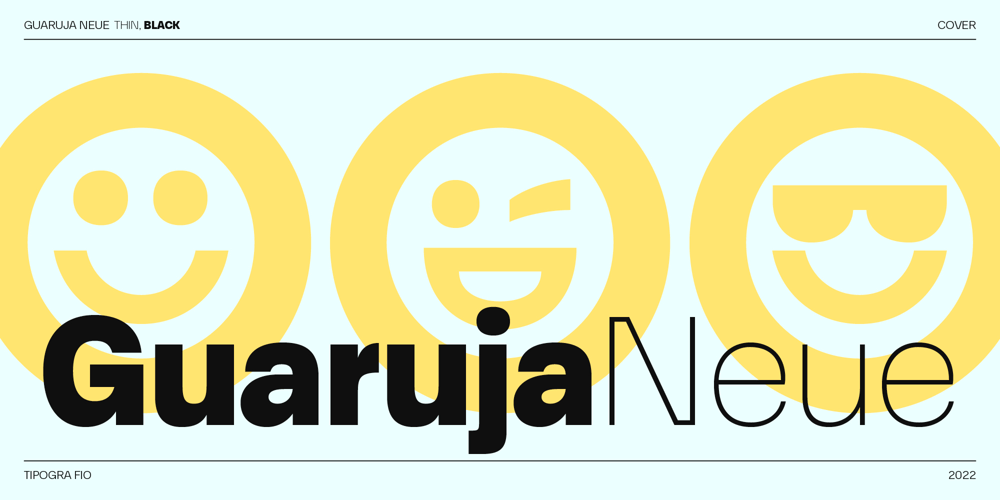
Guaruja Neue Font Family was designed by Fio and published by Tipogra Fio. Guaruja Neue contains 16 styles and family package options. Get in touch with Tipogra Fio and get inspired by Guaruja Neue specimens.Guaruja Neue is a neo-grotesque typeface with additional industrial traits to it, such as open corners in diagonal glyphs and short curves. The semi-cursive italics shapes, more than an orthographic matter, give sea waves for the headlines and copies that Guaruja Neue will compose, since it is named after a city on the coast of São Paulo, Brazil. Stylistic alternates, ligatures, ordinals, arrows and emojis give extra personality for texts that cross millennial and modernist concepts, going from a comprehensive Latin script, including Vietnamese support, until a basic Cyrillic set.Brazilian music tells the graphic story of Guaruja Neue specimens, songs that speak about beaches and the city of Guarujá, as well as the inspiration of 50’s and 60’s modernist design and the music movement of Bossa Nova.This family is also an evolution of Guaruja Grotesk (2021), a typeface with four fonts —Regular, Italic, Bold and Bold Italic— developed as part of a design school project, that now in Neue gains professionalism, refinement and knowledge. Guaruja Grotesk took 18 months to make, and Neue took additional 12 months of redrawing and rethinking, as design as processes.Part of the project got feedback from the typeface designer Ulrike Raush, under the Alphabettes mentorship program. Overview and features: 8 weights and 8 italics; 2 free fonts: Guaruja Neue Regular and Guaruja Neue Italic; Extended Latin and basic Cyrillic; 800+ glyphs; Numbers: proportional, tabular, superscripts, subscripts, denominators, numerators and fractions; Greek for math; Case-Sensitive forms; Arrows; Standard and discretionary ligatures; SS01: one story a and SS02: two story g; Emojis and SS03: negative alternate emojis; Ligatures for English ordinals;